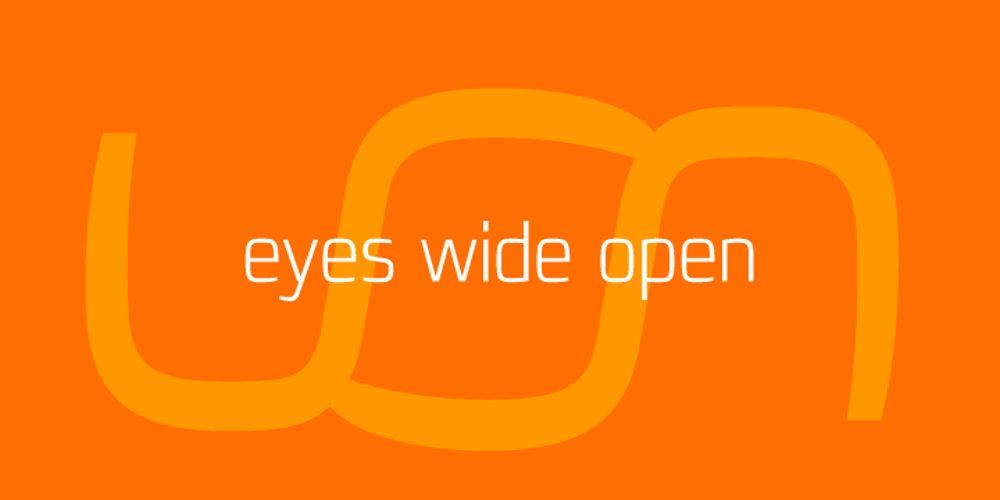
Francker
Francker font
Francker Font Family was designed by Anders Francker and published by Linotype. Francker contains 36 styles and family package options. Francker is a sans-serif, based on clean and simple design principles that betray its Danish origin. Its curves are based on the “super ellipse”, a mathematical shape about half-way between an ellipse and a rectangle. Francker’s lowercase lettershapes a, b, n, and u, have no spurs, emphasizing the simplicity of their construction. The Francker family is available in two widths, normal and condensed, each in nine weights, from extra light to extra black. Use Francker for signage, posters, magazines, advertisements, or corporate identity projects—wherever an industrial, contemporary look is needed. The Francker type was developed and designed by Anders Francker, an engineer and designer living in Denmark.